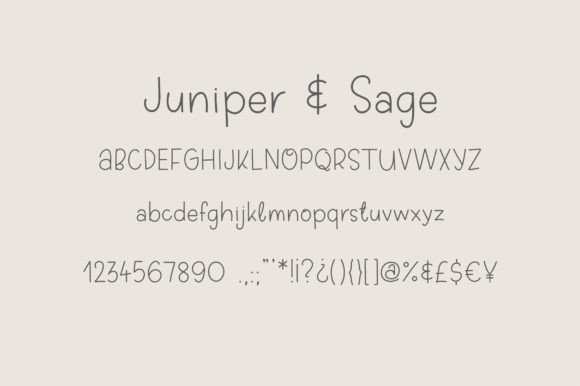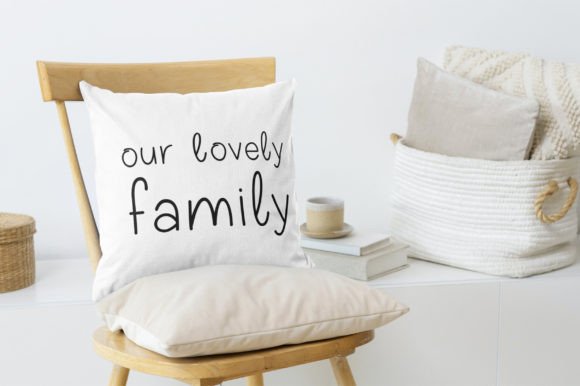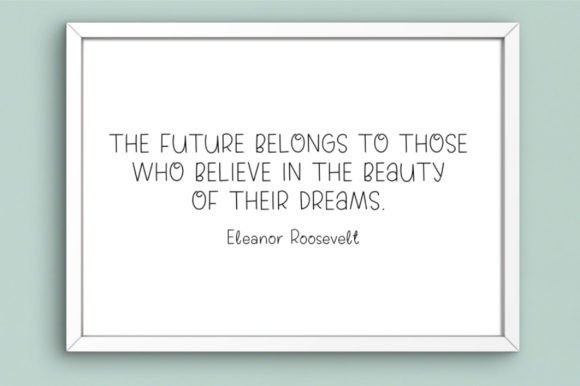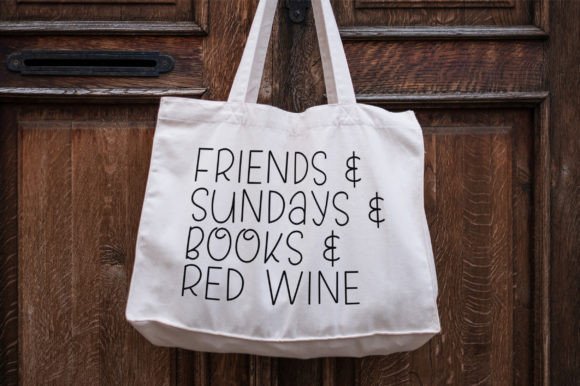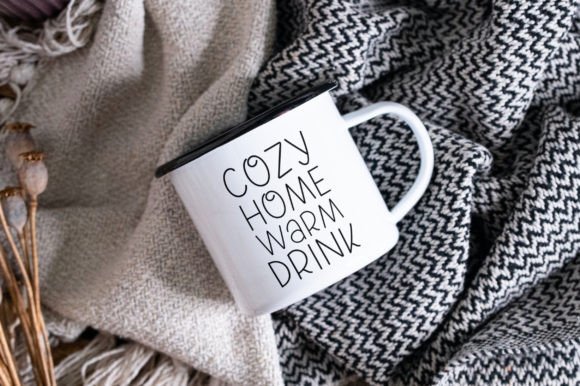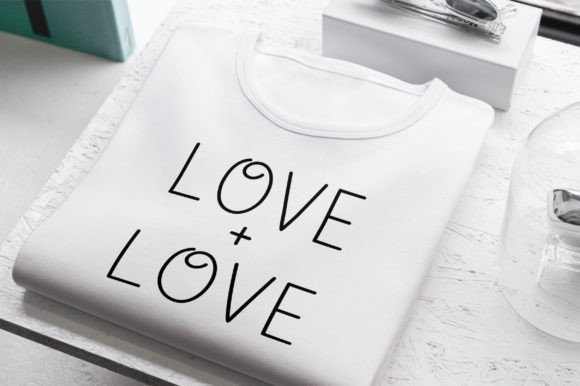
Introduction to Juniper & Sage Font
Remember that moment when you’re working on a creative project and you can’t seem to find the perfect font to bring it all together? The words on the page just don’t seem to be connecting with the overall aesthetic you had in mind. It’s frustrating, but it’s also a great opportunity to discover something new and exciting.
That’s where Juniper & Sage Font comes in – a simple yet elegant design resource that’s perfect for any creative project. Its clean lines and smooth curves make it easy to read, while its thin strokes create an elegant look that’s sure to elevate your design to the next level.
What sets Juniper & Sage Font apart from other high-quality fonts is its versatility and accessibility. With a transparent background, it’s easy to place over any image or background, making it a valuable resource for designers of all levels.
Key Features of Juniper & Sage Font
- High-quality, professional font ideal for creative projects and design resources.
- Features a clean and elegant design, making it suitable for a wide range of creative applications.
- Includes a comprehensive character set, including uppercase and lowercase letters, numbers, and punctuation marks.
Honest Review: Juniper & Sage Font
I recently had the chance to work with the Juniper & Sage Font, and I must say it’s been a game-changer for my creative projects. This font is a valuable design resource that can elevate any visual content.
- High-quality design that’s both modern and elegant ✨
- Transparent background option for easy customization ✨
While the Juniper & Sage Font excels in many areas, there are a few limitations to consider:
- Only comes in two weights, which may limit its versatility ⚠️
- Not suitable for very large-scale projects, as it may not be scalable enough ⚠️
Overall, I’m impressed with the Juniper & Sage Font’s performance. Its high quality and transparent background make it a great choice for designers looking to create visually appealing content. While it may have some limitations, I believe it’s a valuable addition to any design toolkit.
How to Use Juniper & Sage Font
The Juniper & Sage Font is a high-quality design resource ideal for creative projects. Its unique style and versatility make it a valuable addition to any design toolkit.
Getting the Most Out of Juniper & Sage Font
To get the most out of the Juniper & Sage Font, experiment with different font sizes, colors, and combinations. This font is ideal for creating a cohesive brand identity or adding a touch of elegance to your designs.
The Juniper & Sage Font is suitable for various creative projects, including:
– Branding and identity design
– Packaging design
– Editorial design
– Social media graphics